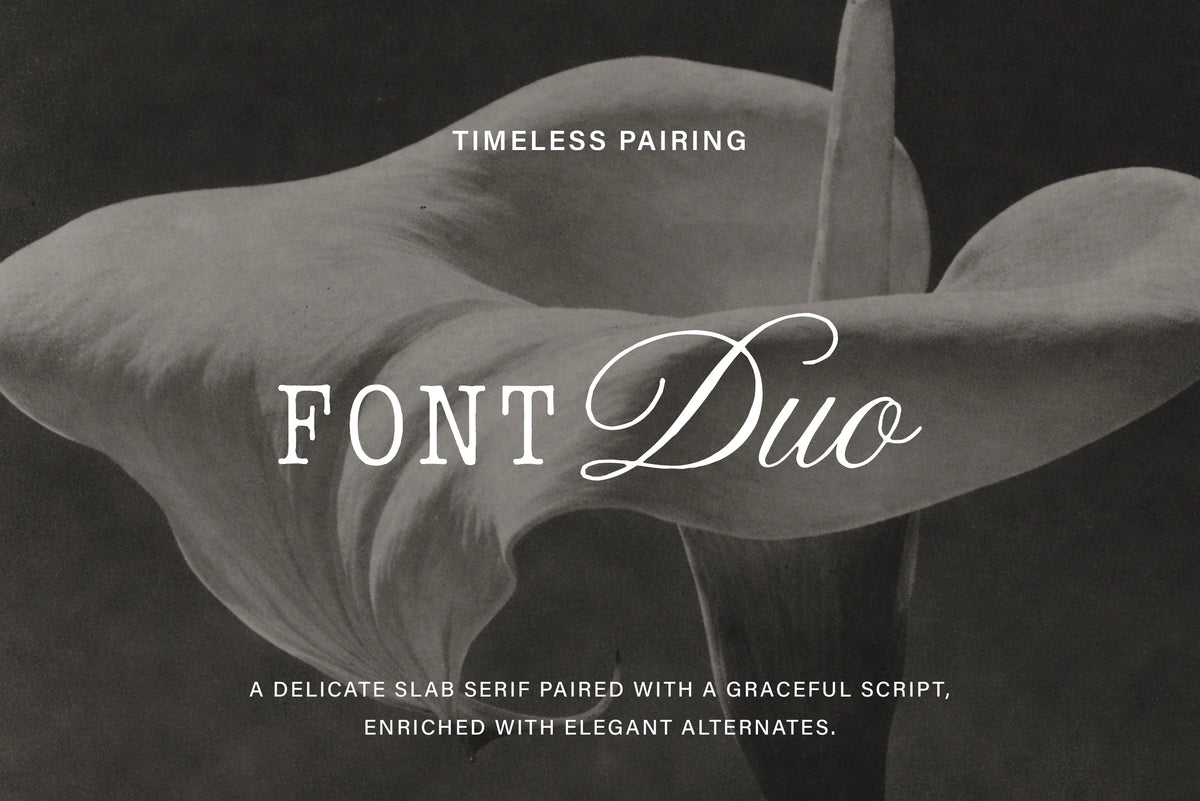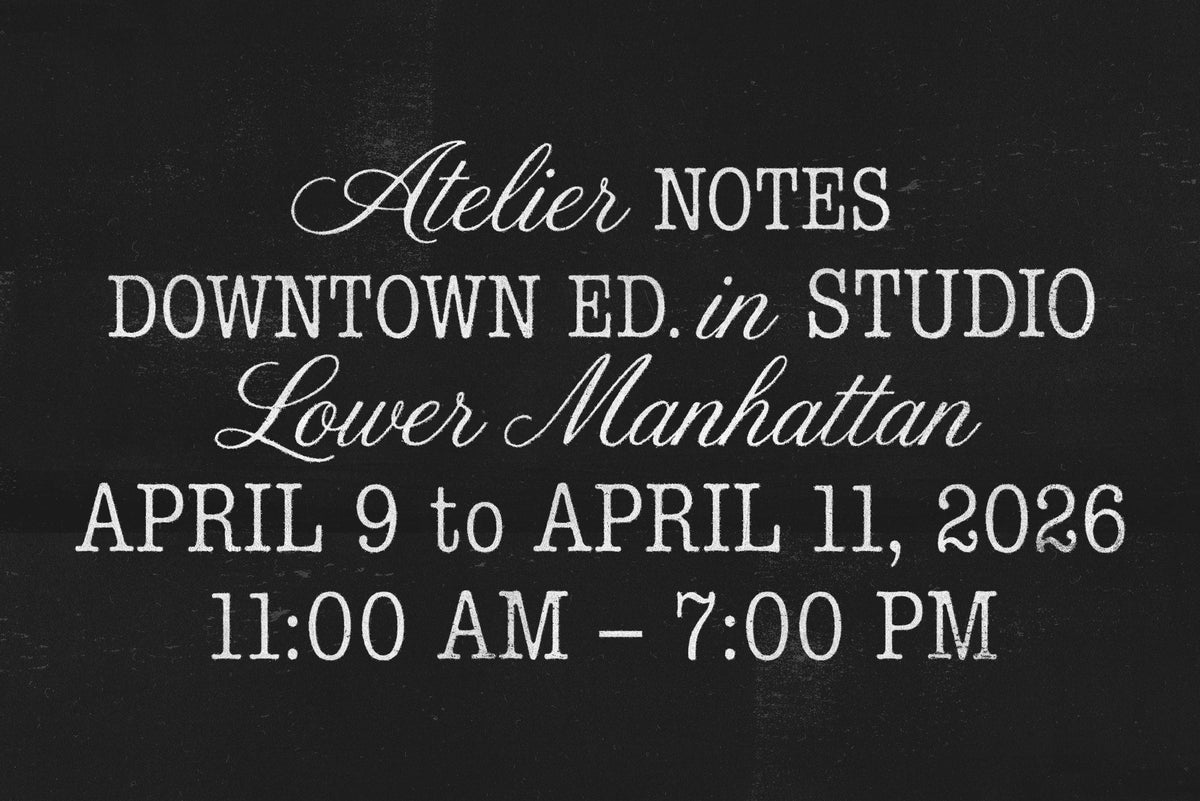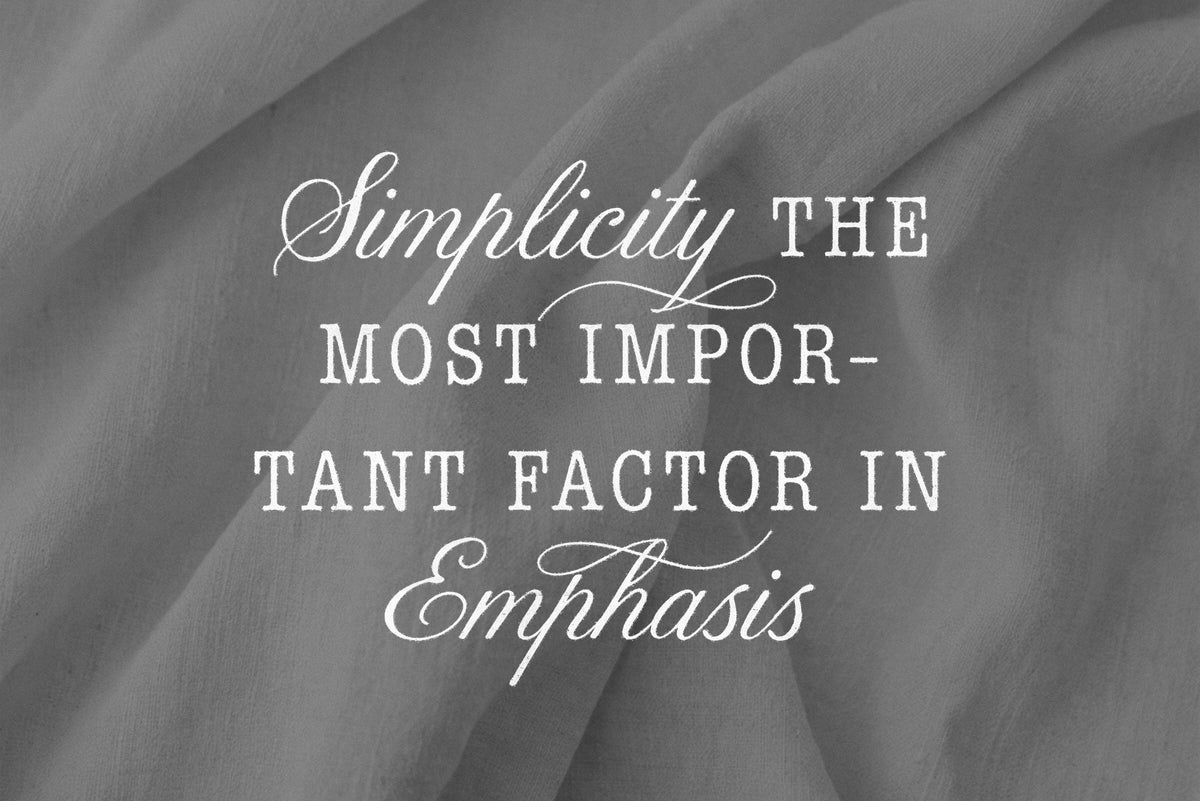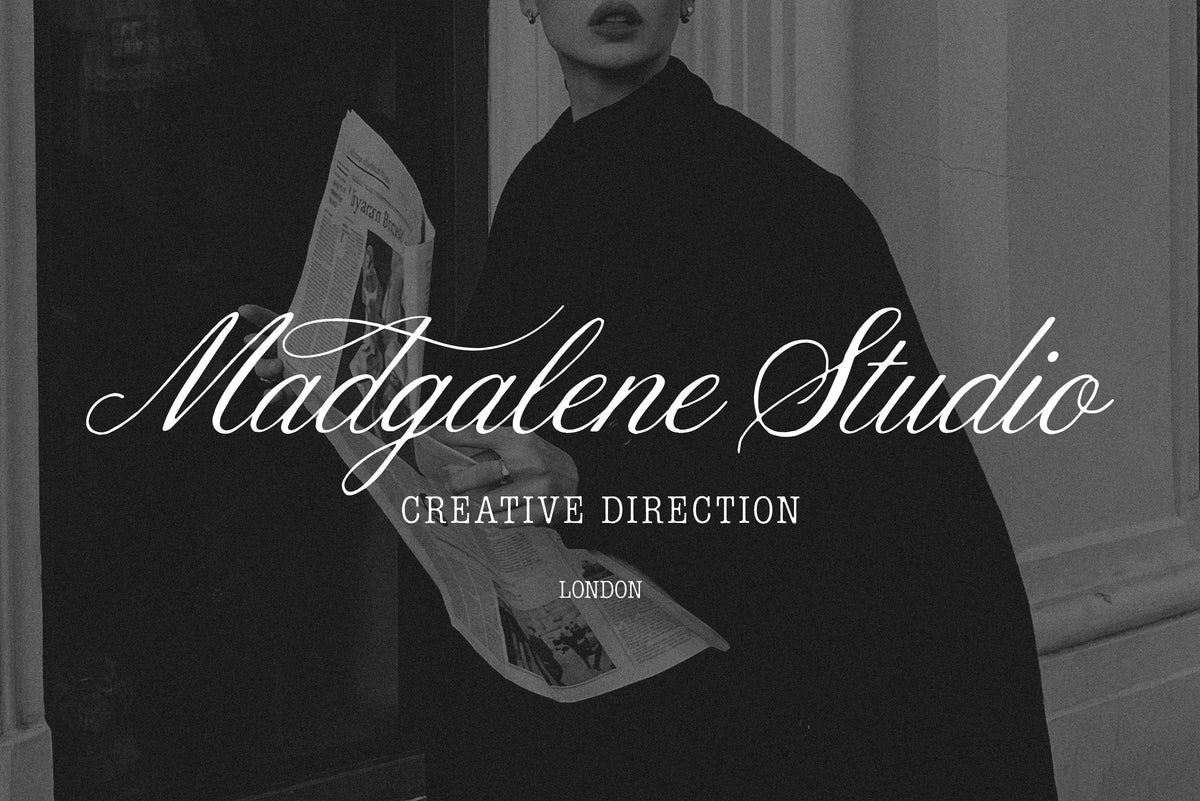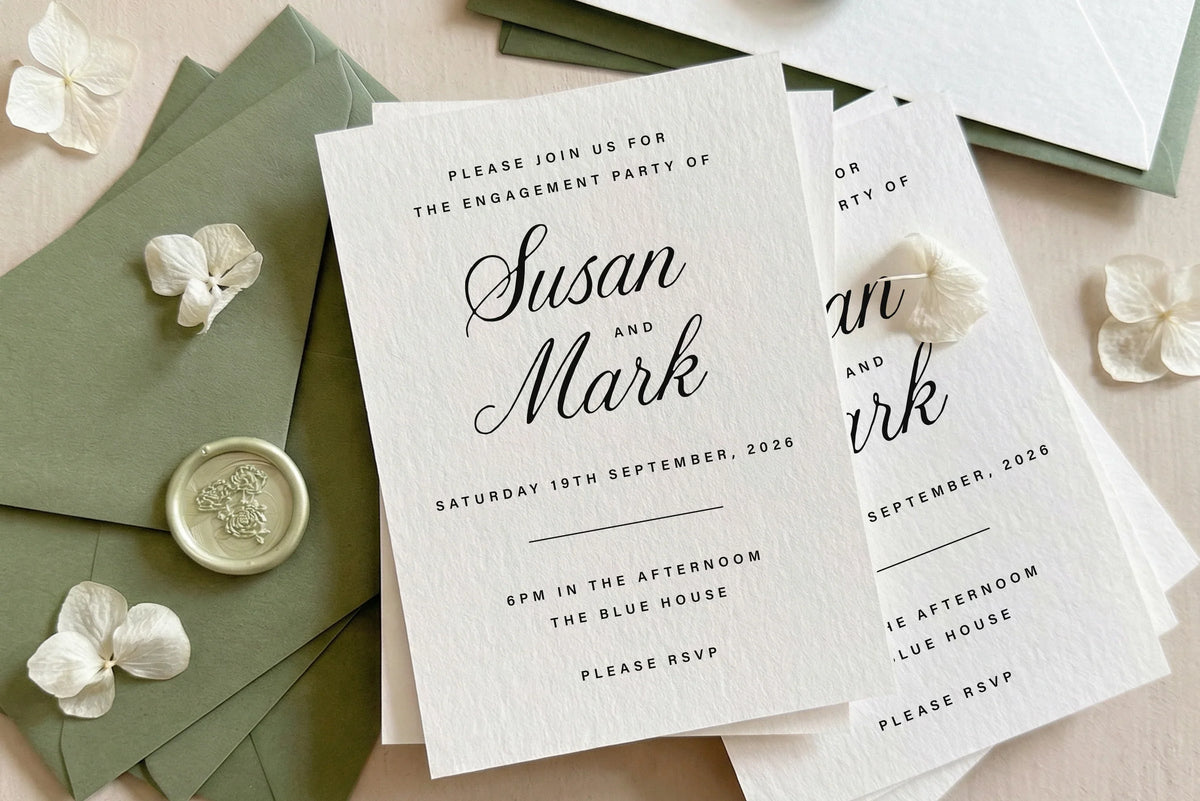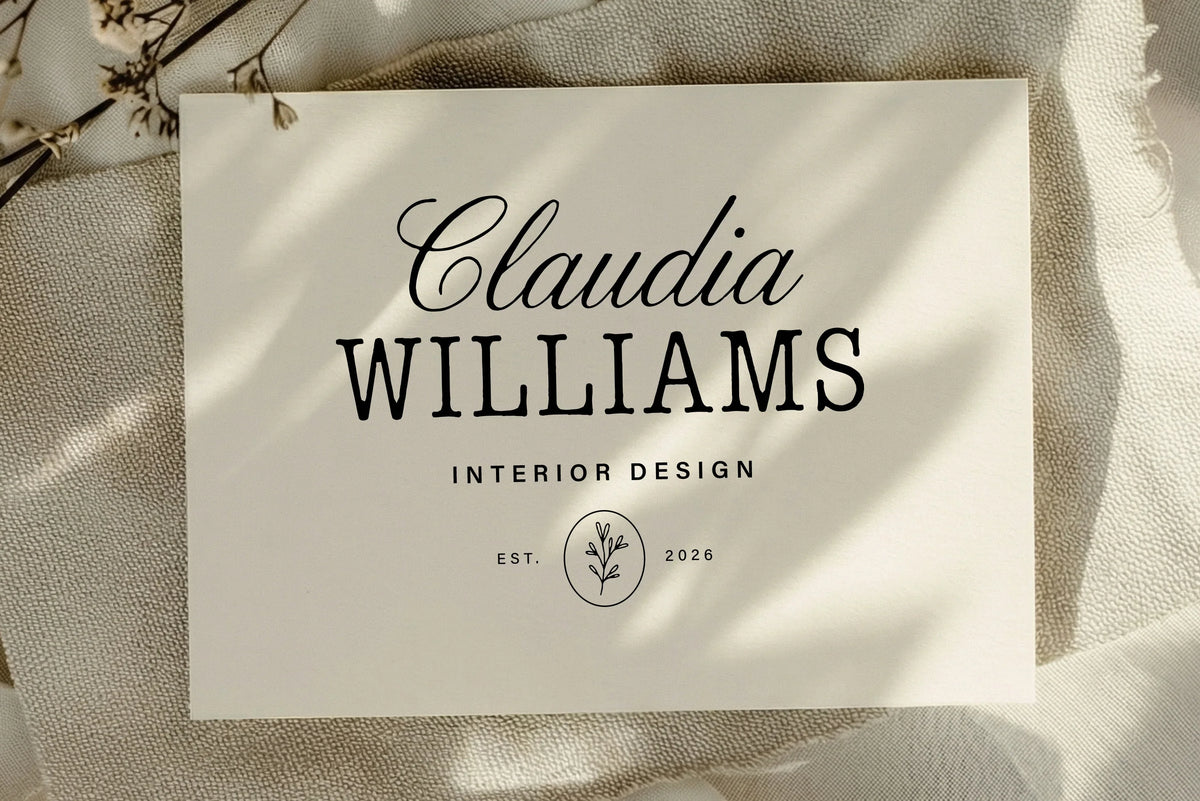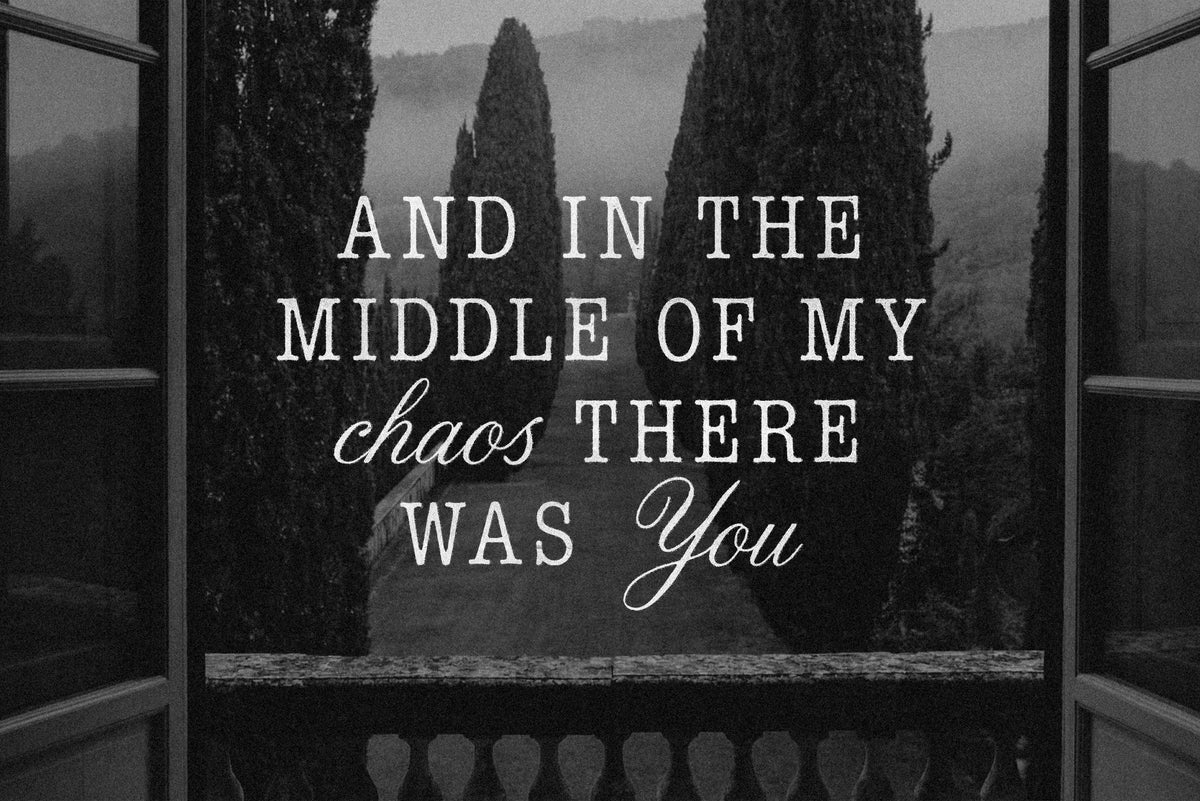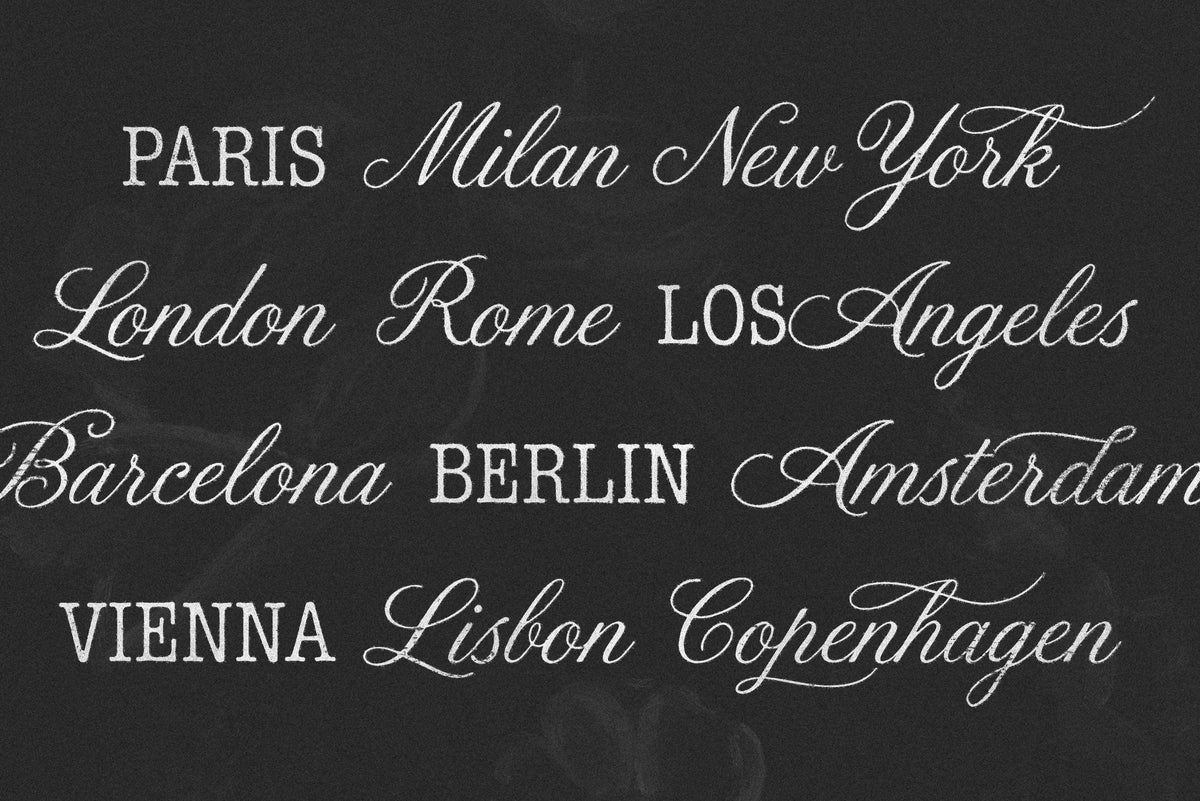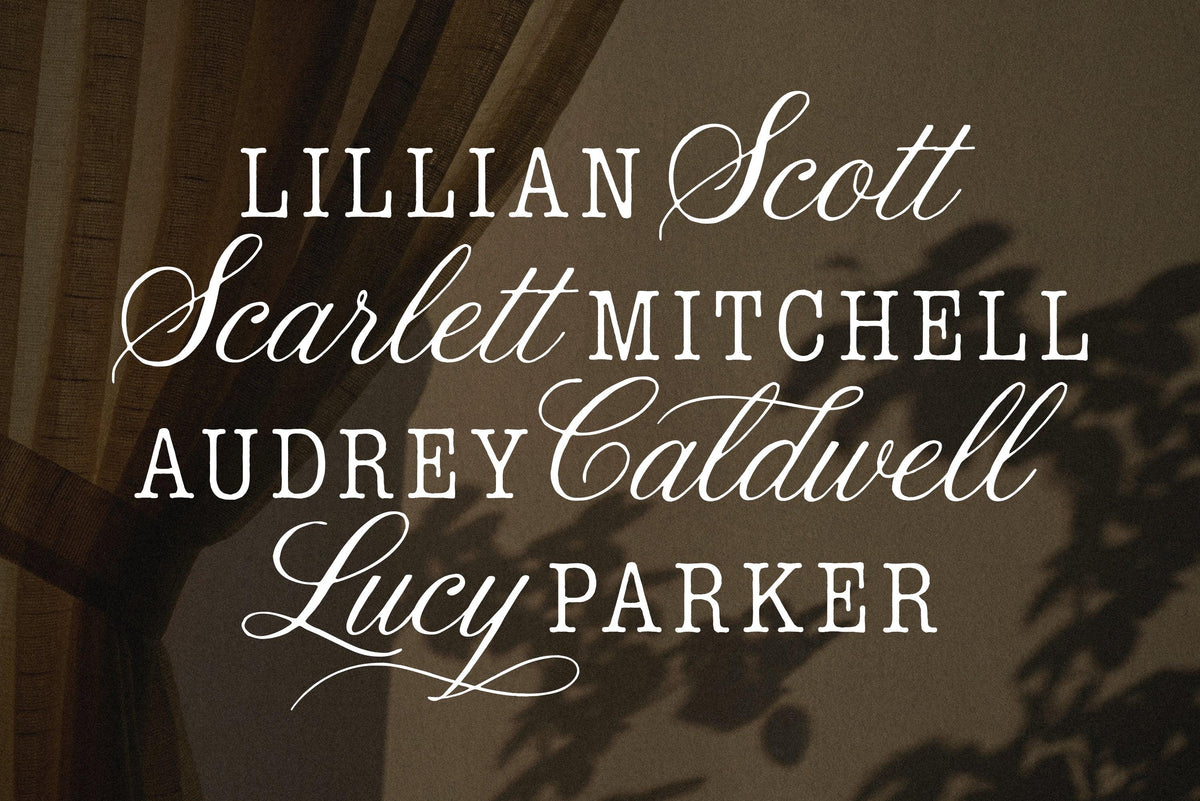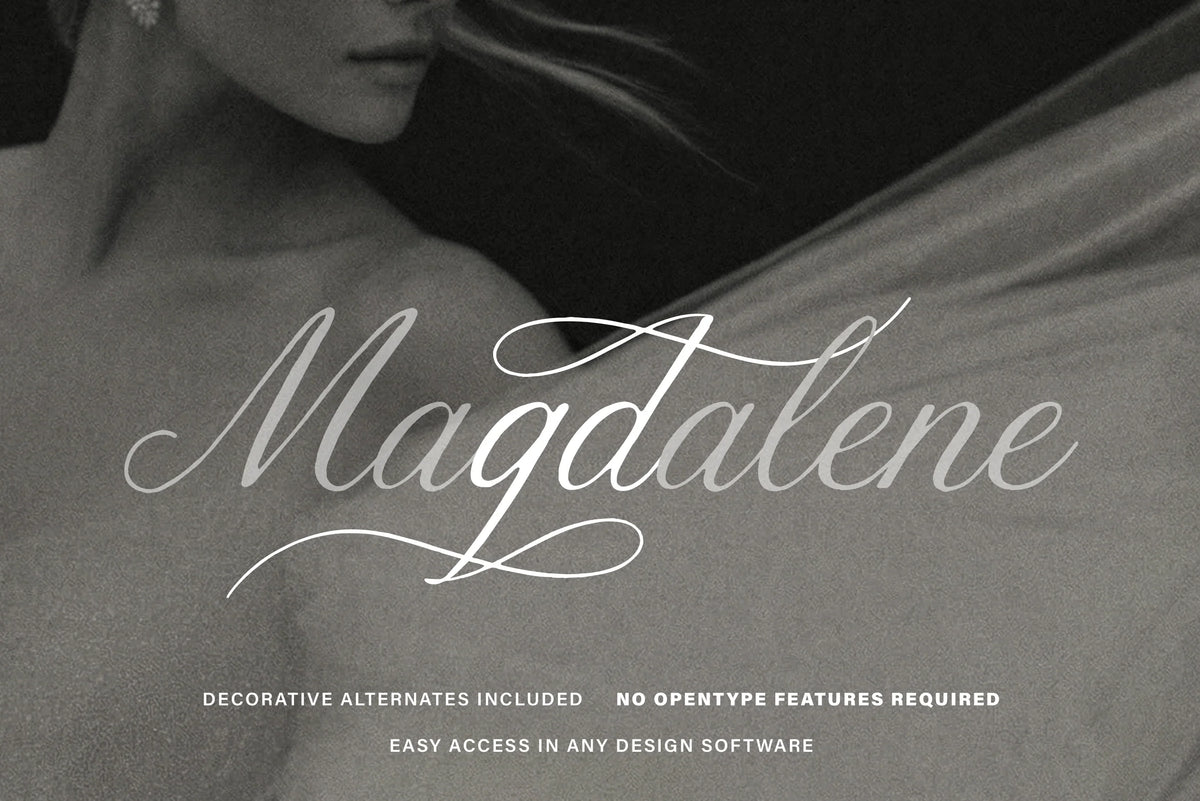
Details - Refined Font Duo
Details is a refined font duo built around contrast and balance. It brings together an expressive, hand-drawn script and a soft slab serif to create a visual language that feels elevated, warm, and effortlessly readable.
The script adds personality and movement, flowing naturally across the page and enhanced by custom alternates that introduce a subtle, handcrafted character. The slab serif anchors the design with clarity and structure, creating a calm rhythm that feels intentional and well-considered.
Together, the two styles form a versatile typographic system designed for projects where detail, contrast, and elegance matter.
Perfect for
Editorial layouts and branding
Premium packaging
Wedding and event stationery
Curated social media identities